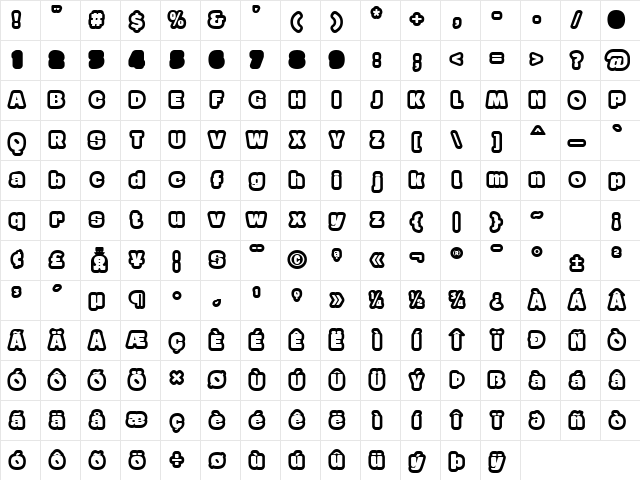
Gaban Regular
| Foundry | Fernando Haro |
| Designer | Fernando Haro |
Design Context for Gaban Typeface
Gaban is a composed and adaptable typeface that performs quietly and consistently across a wide range of design contexts.